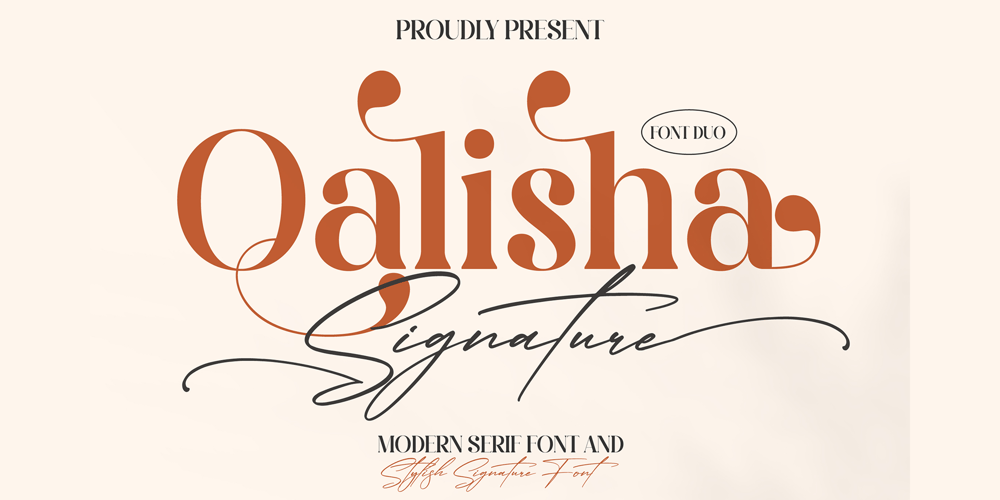
Qalisha Signature Script Font Family was designed by Heru Utama Putra and published by Letterena Studios. Qalisha Signature Script contains 4 styles and family package options. Qalisha Signature consists of two fonts designed to complement each other perfectly. Together or apart, these fonts are ideal for adding a chic and cheery touch to your crafts. This font is PUA encoded which means you can access all glyphs and swashes with ease!